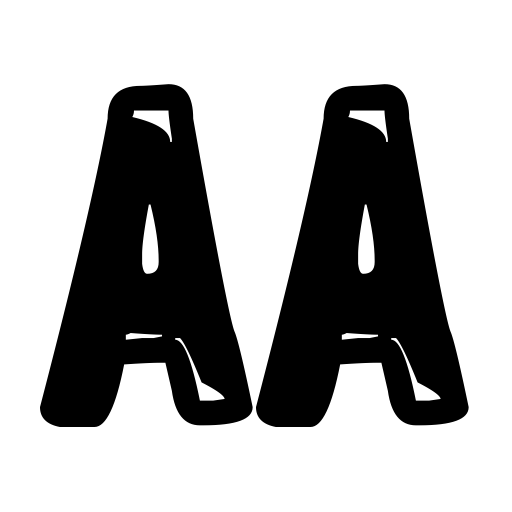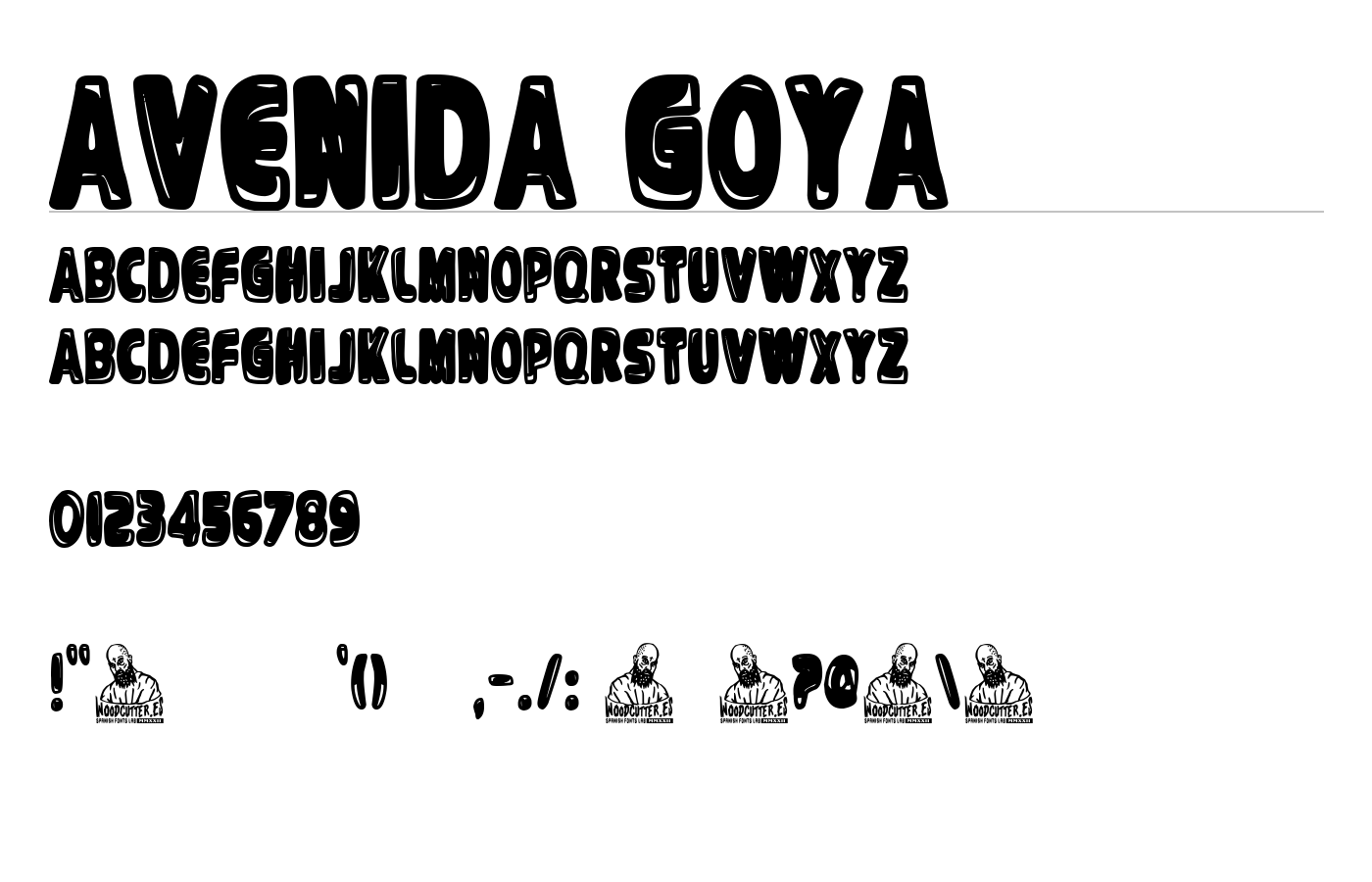
Avenida Goya is a bold and playful display font with a chunky, rounded sans serif style that exudes a fun and quirky personality. Its tightly packed letterforms and irregular shapes make it ideal for eye-catching headlines, logos, and creative projects that want to convey energy and uniqueness. This font works well in casual, youthful branding and poster designs where a strong, informal impact is desired.
Avenida Goya Font
About Avenida Goya Font